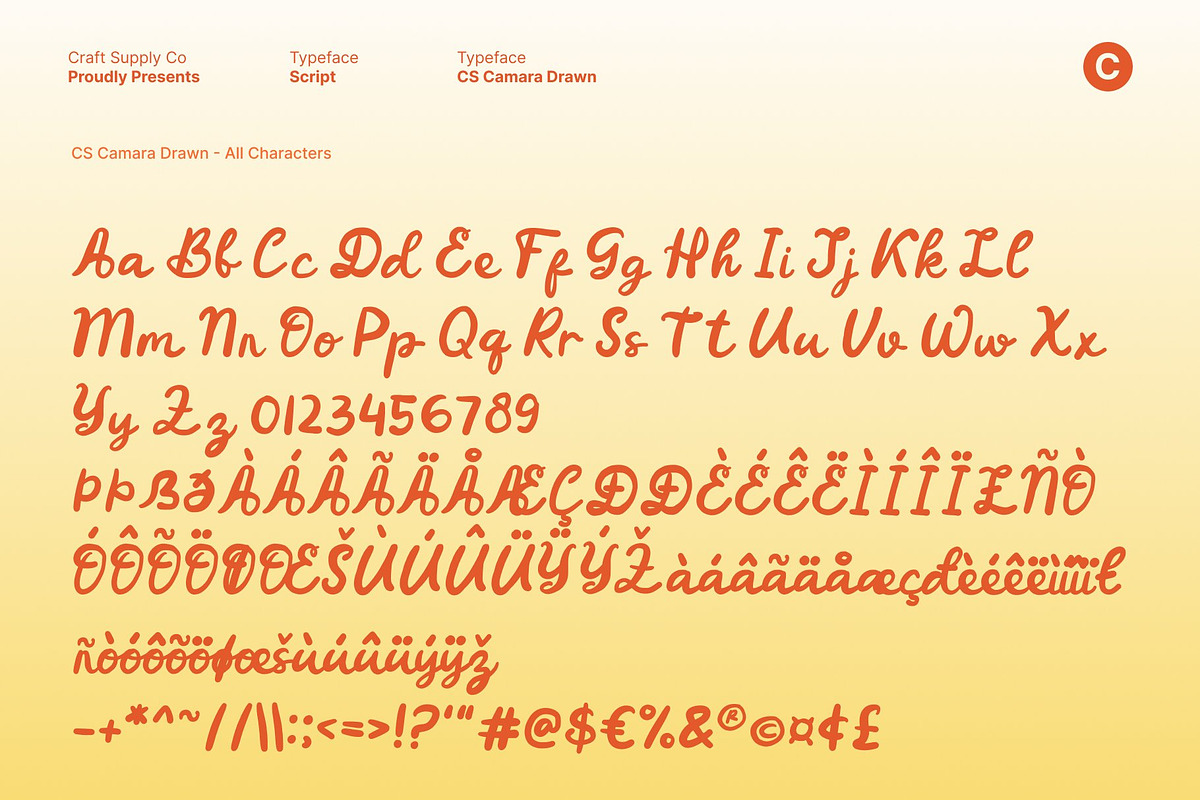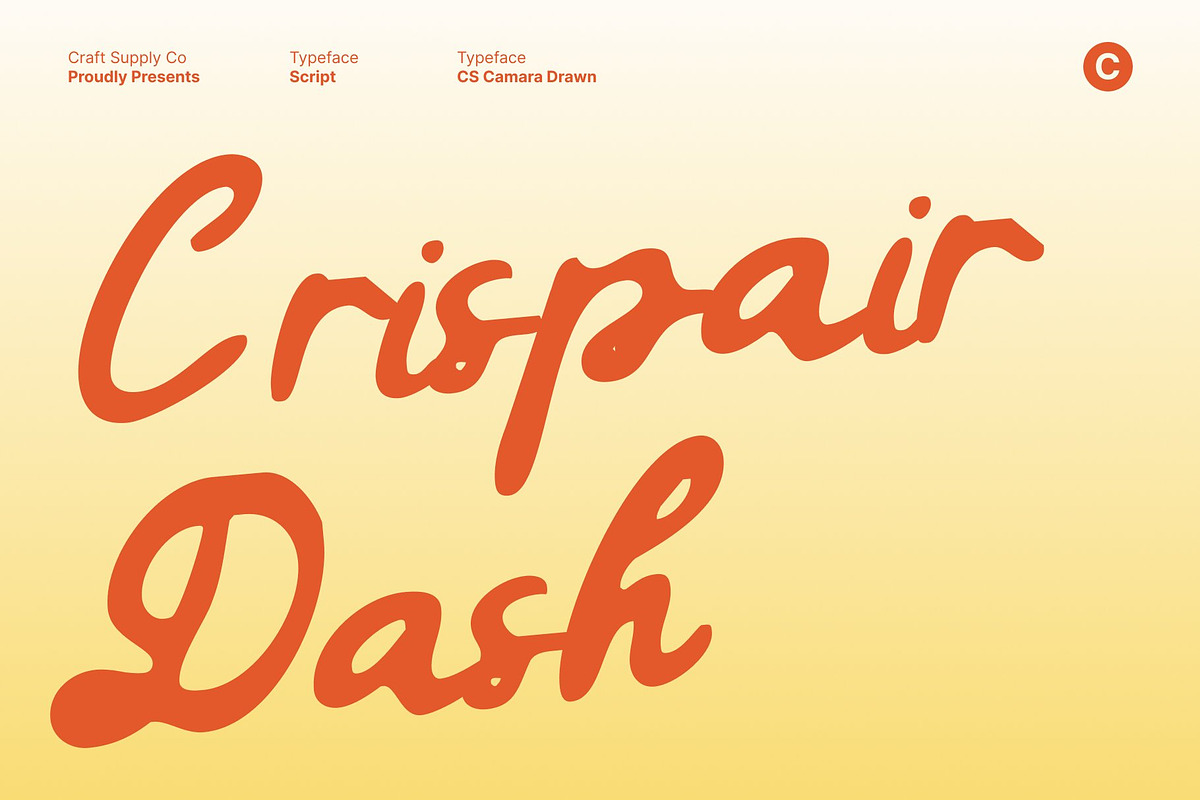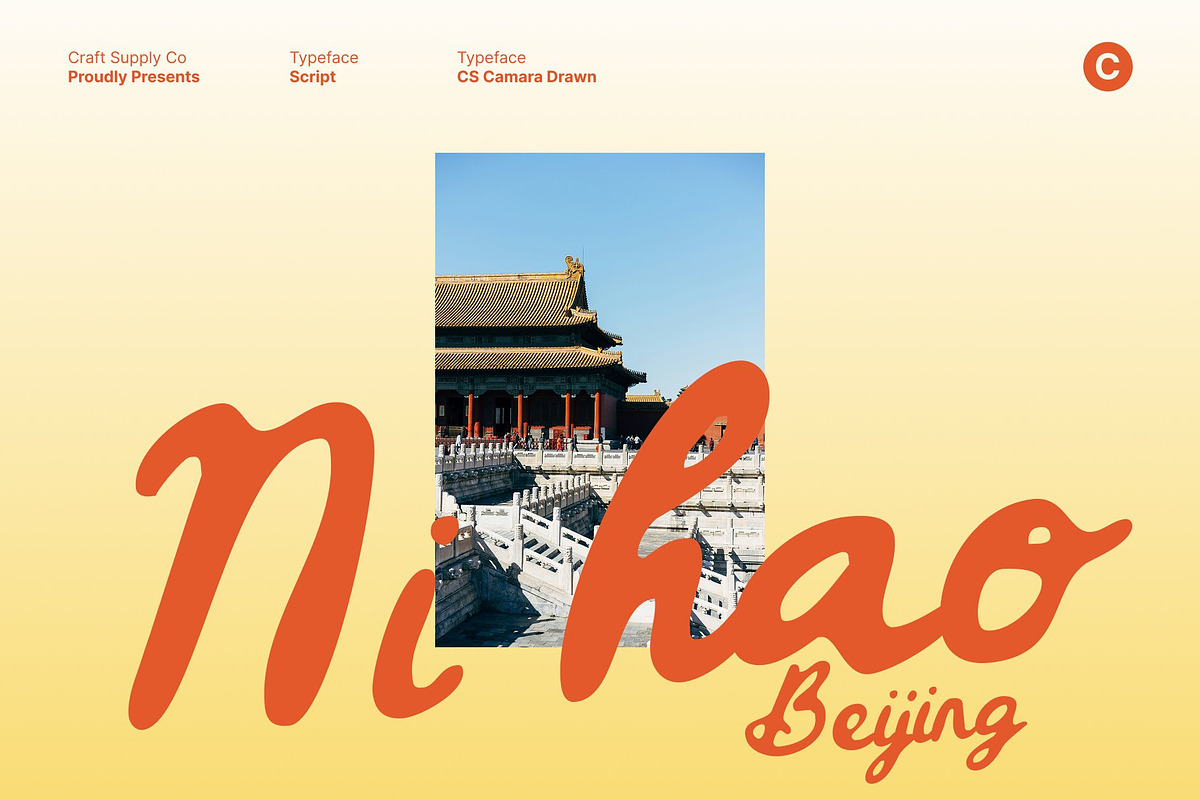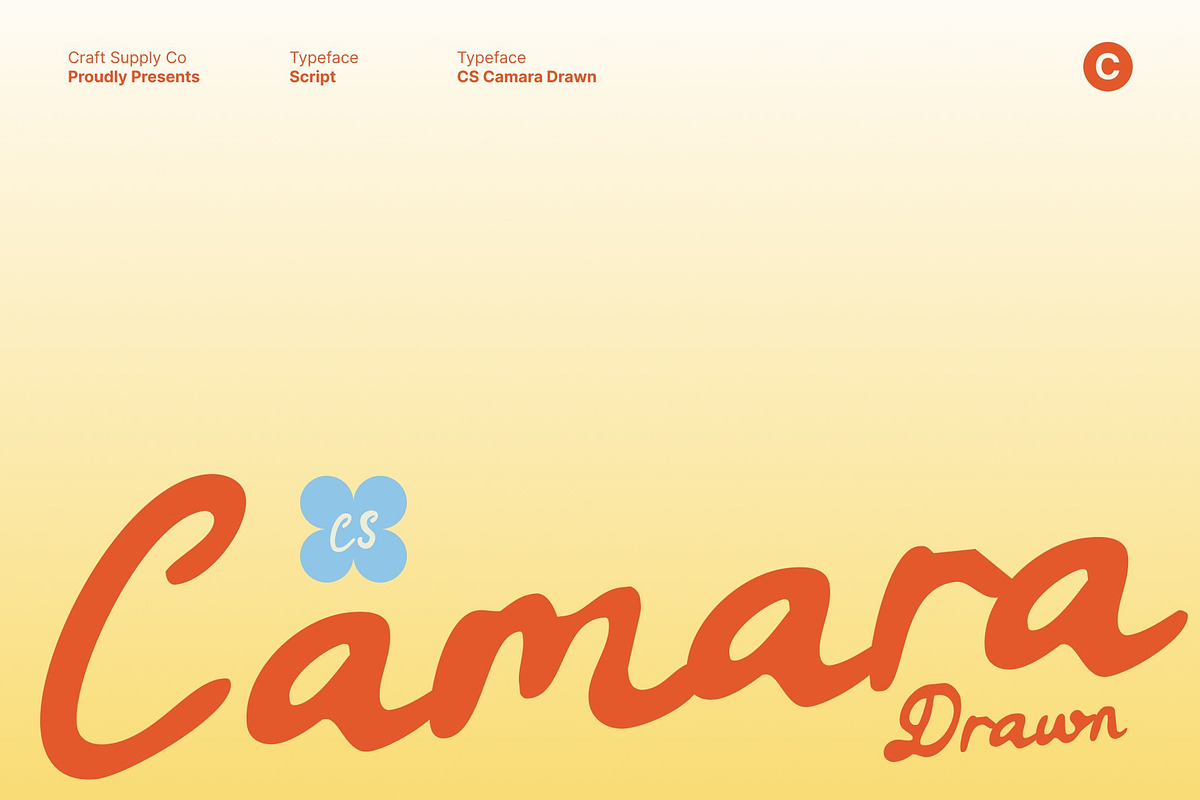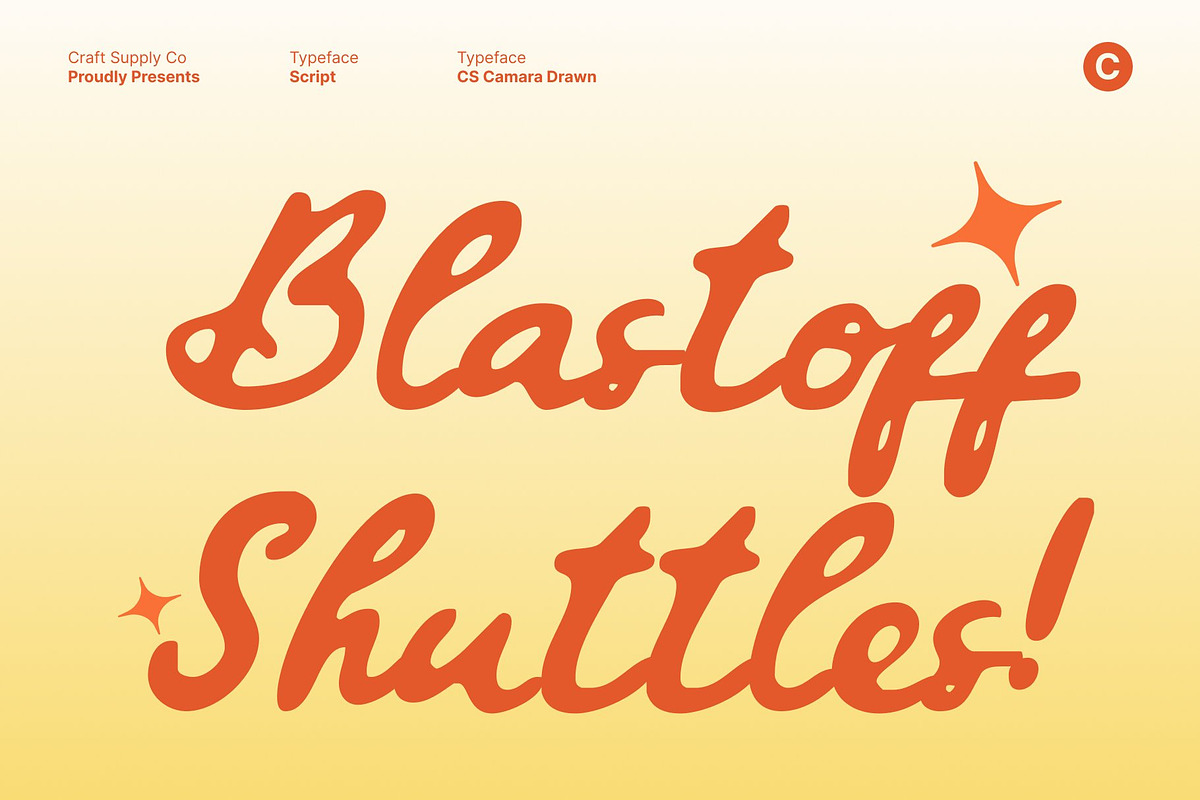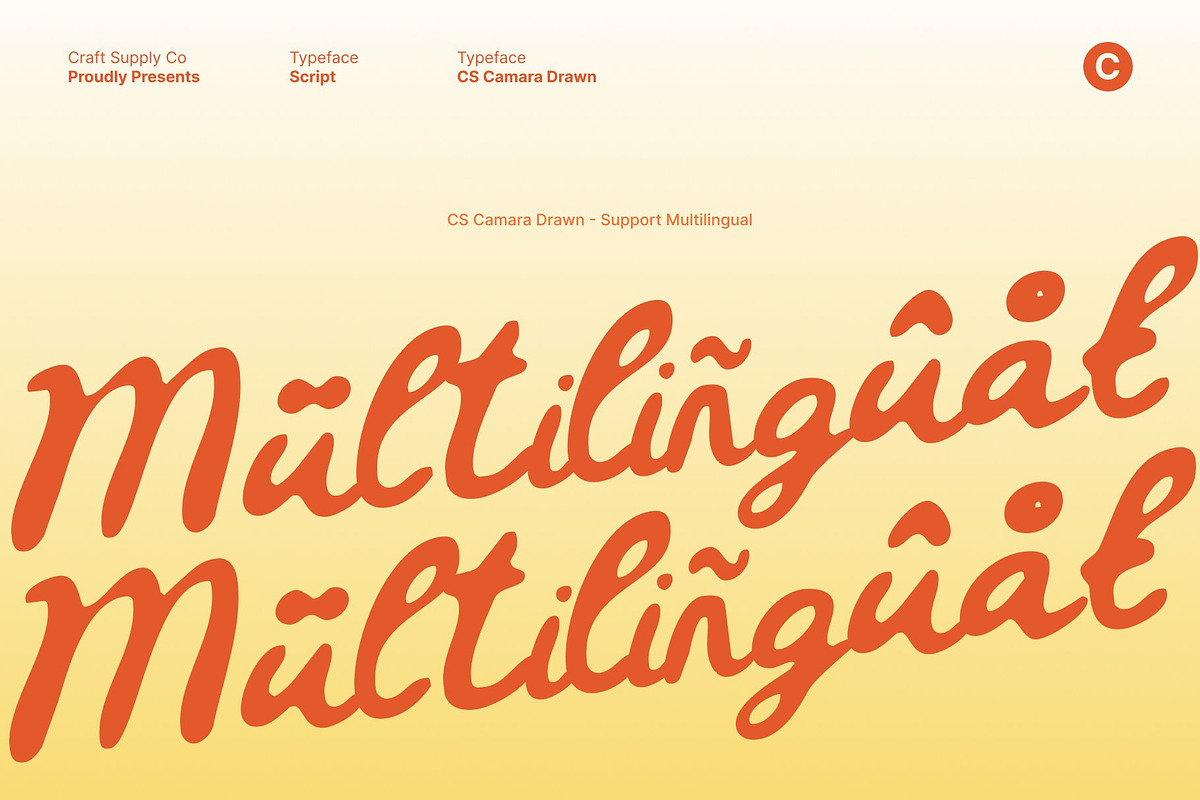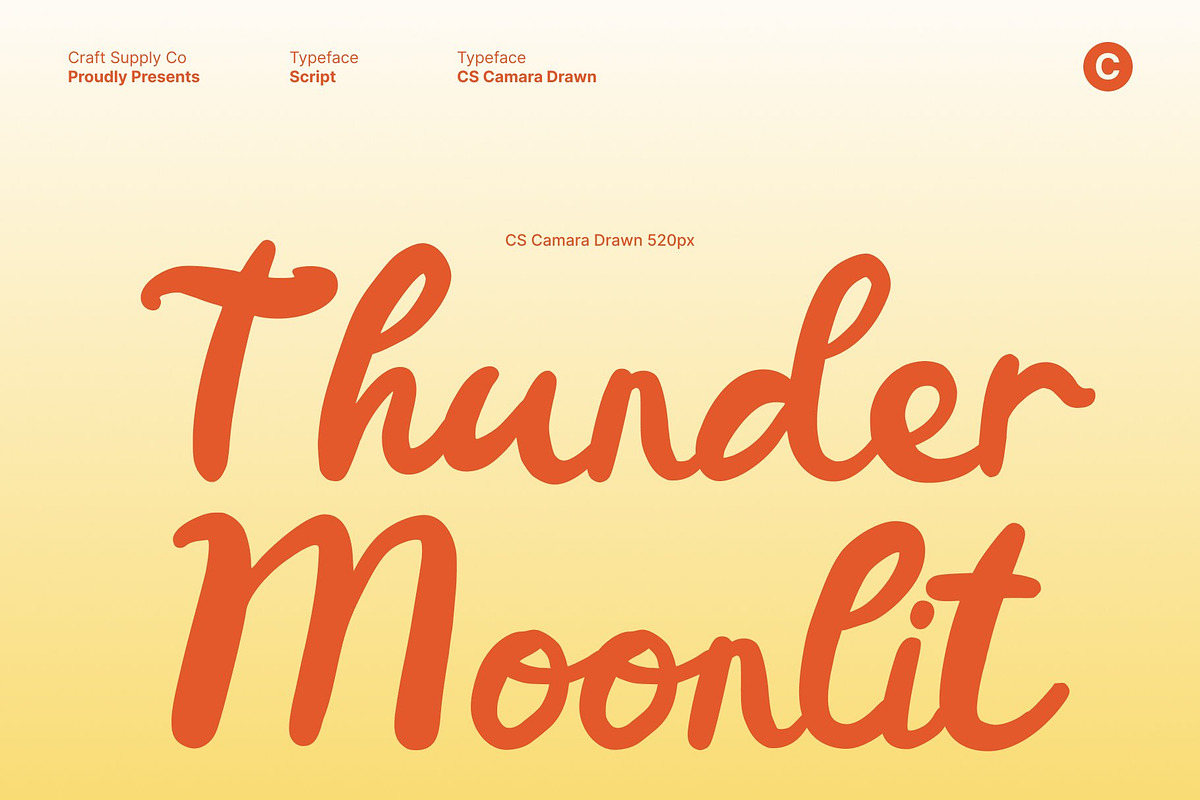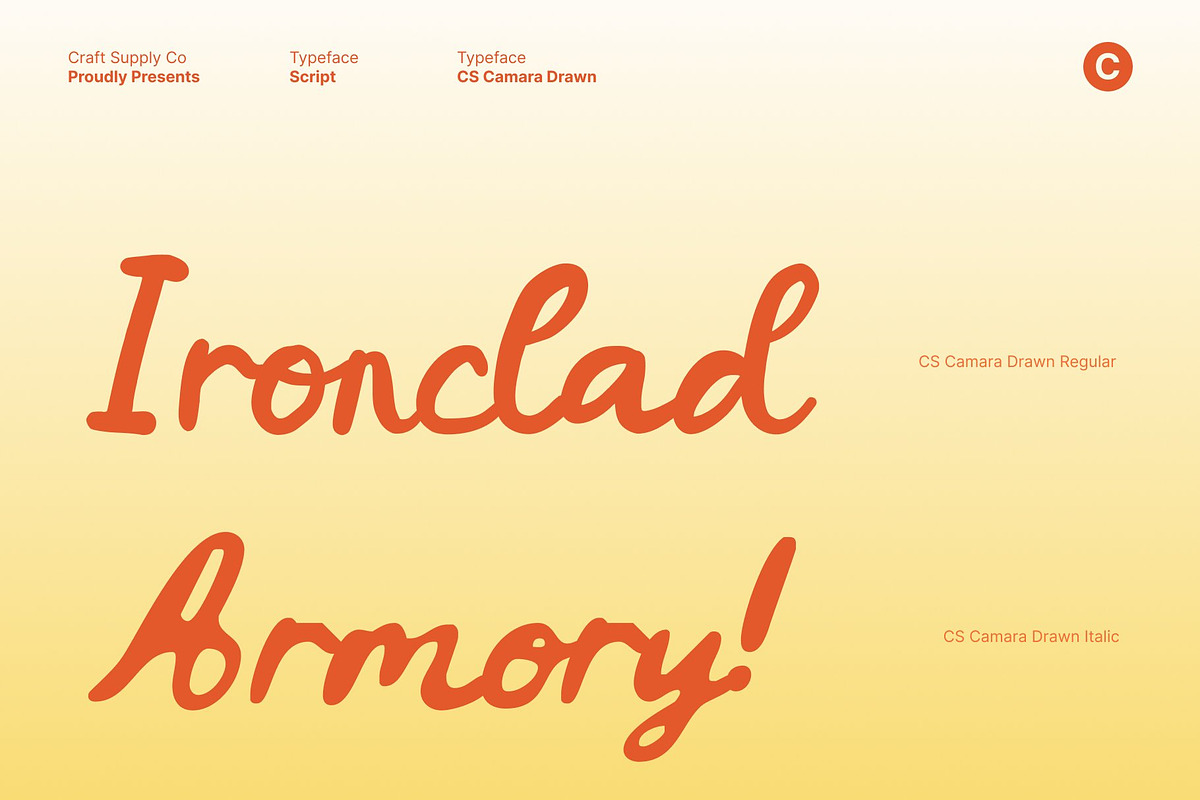
CS Camara Drawn
CS Camara Drawn – Graceful Flow with Artistic Handwritten Beauty
Handwritten Script with Flowing Charm This is a beautiful handwritten script font that shines through graceful curves and a smooth, flowing rhythm. Inspired by elegant handwriting, it delivers a refined yet natural appearance that feels expressive and full of emotion. Each letter flows effortlessly into the next, creating a harmonious script that radiates sophistication and charm.
Artistic Drawn Effect with Refined Details The drawn effect gives this font a distinctive artistic character, adding subtle texture and handcrafted depth to every stroke. This hand-drawn quality softens the elegance, making the font feel more personal and authentic rather than overly formal. The result is a script that looks carefully illustrated, rich in detail, and visually captivating.
Sophisticated Style for Elegant Visuals This font is ideal for designs that require beauty and refinement. Its flowing structure and stylish rhythm make it perfect for wedding invitations, luxury editorials, fashion branding, and upscale packaging. The script enhances visual storytelling by conveying romance, elegance, and timeless appeal.
Perfect for Luxury and Expressive Branding Whether used for logos, headlines, or decorative accents, this font elevates designs with an artistic handwritten presence. Its balance of grace, readability, and drawn texture makes it a versatile choice for designers seeking a script font that feels luxurious, expressive, and beautifully crafted.